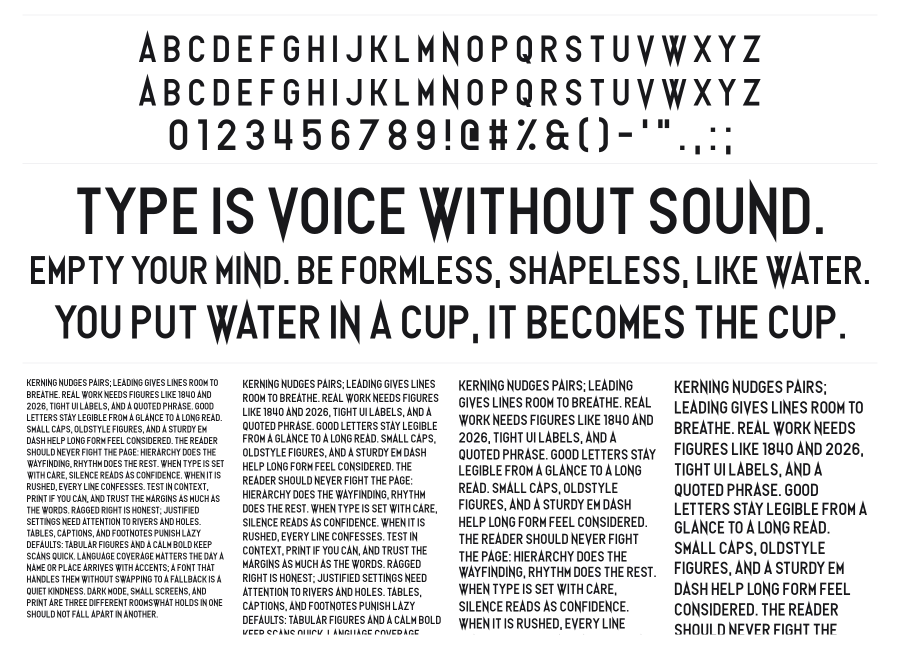
Hands Oversaturation
Hands Oversaturation is a condensed sans-serif with a dark twist: sharp spike-like cuts erupt from select strokes, creating sudden moments of visual violence in an otherwise clean design. The contrast between the controlled geometry and these blade-like intrusions gives it a distinctly unsettling, thriller-ready character. Strong for horror titles, music branding, and any headline that needs an edge.